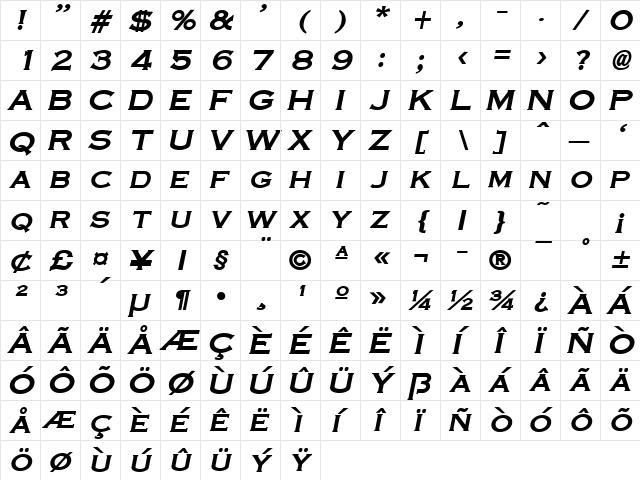
CopperPlate Bold-Italic Font Preview
CopperPlate Bold-Italic
Design Context for CopperPlate Typeface
CopperPlate takes a measured approach to typography — its balanced proportions and neutral character make it a reliable workhorse for both digital and print work. Its italic angle brings a sense of urgency and motion to the letterforms. The heavy weight commands attention and anchors typographic hierarchies.
Pro Tip: Use CopperPlate for emphasis, pull quotes, and subheadings where its slanted energy can add rhythm to the layout.